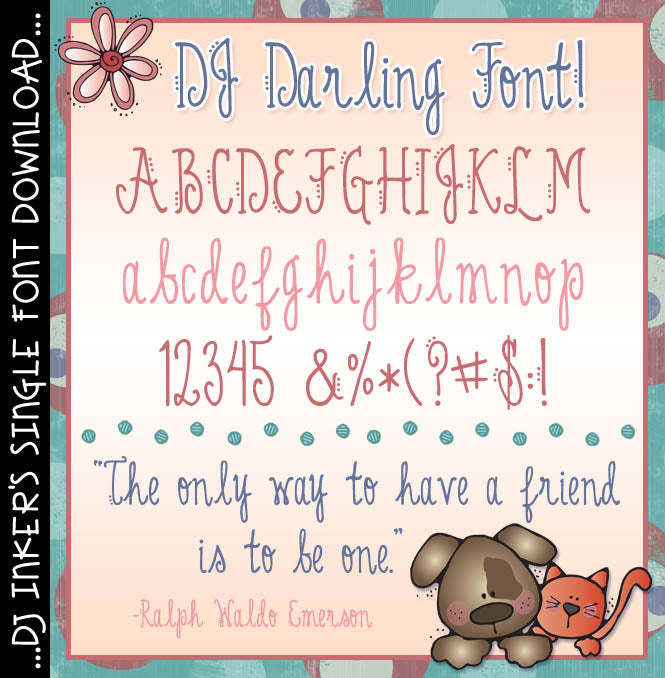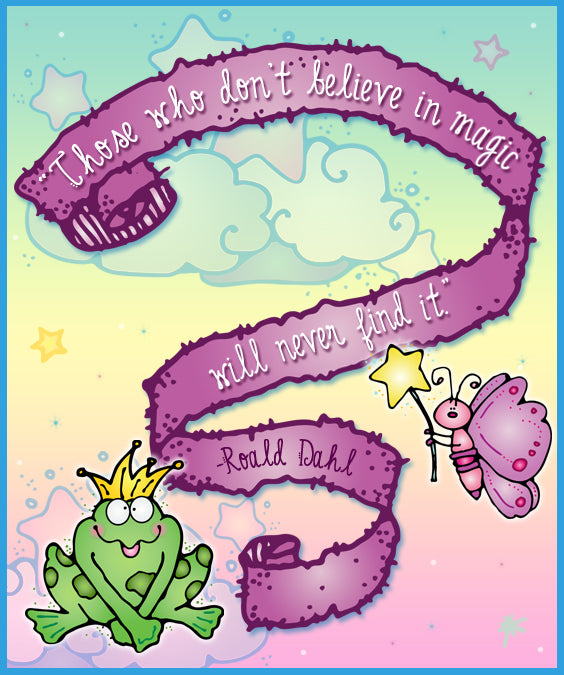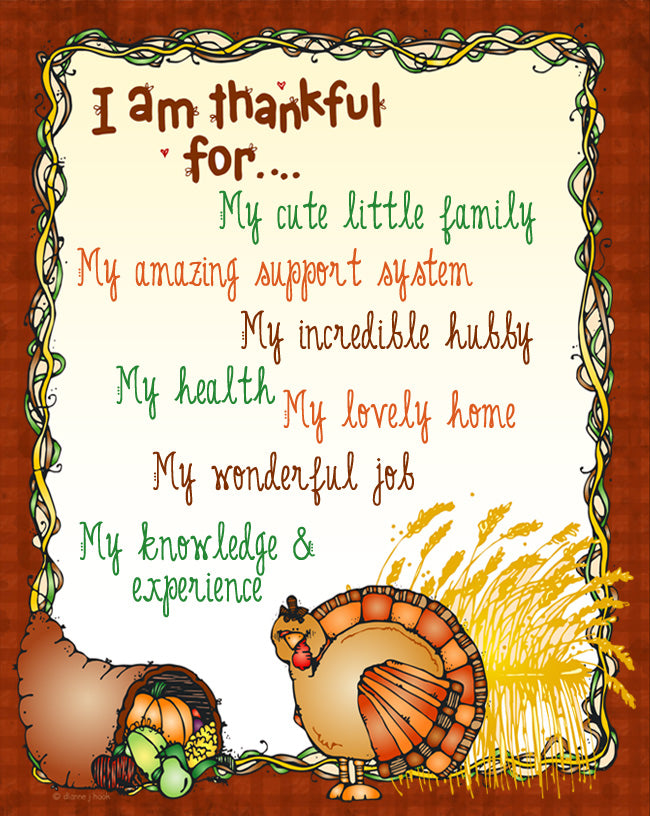
DJ Darling Font Download
Your words will look oh-so-sweet typed in this DJ Darling font!  This soft, cursive lettering will be wonderful for letter writing, journaling, sweetheart scrapbooks, thank you notes and more.